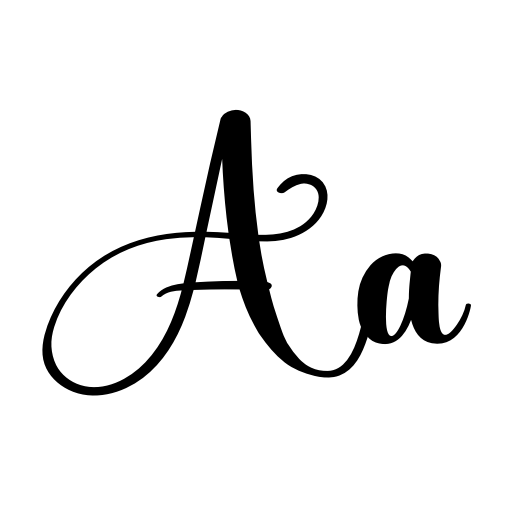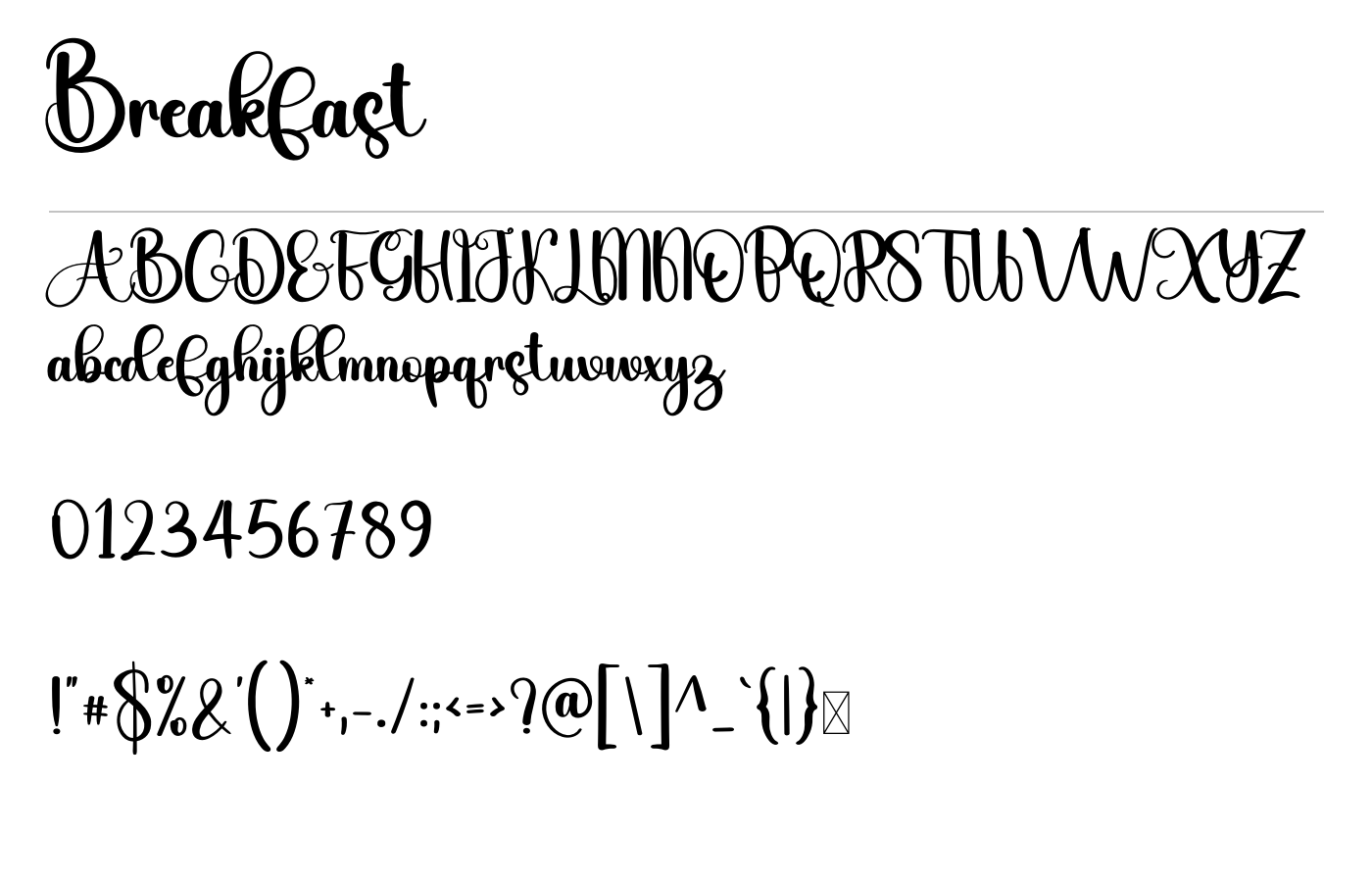
Breakfast Font is a playful and elegant script typeface with a lively, hand-drawn feel. Its smooth, flowing strokes and distinctive curls give it a friendly and inviting personality, perfect for creative branding, invitations, and eye-catching headlines. This font works beautifully in design projects that seek a warm, approachable, and stylish touch.
Breakfast Font
About Breakfast Font
| Font family | Breakfast Font |